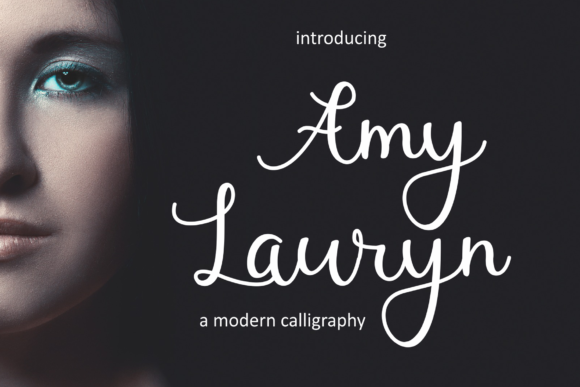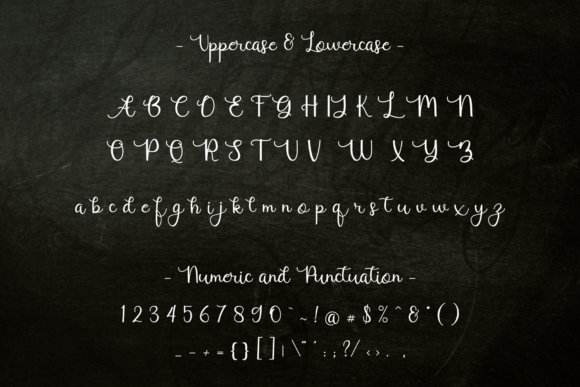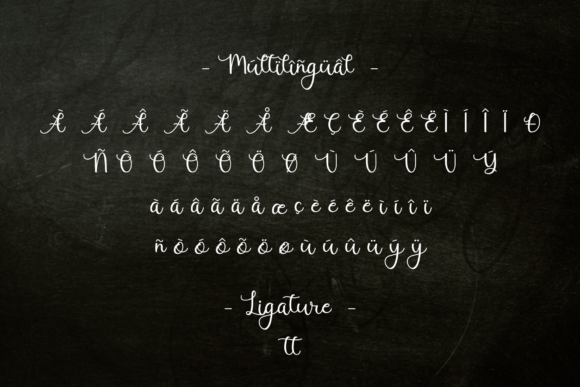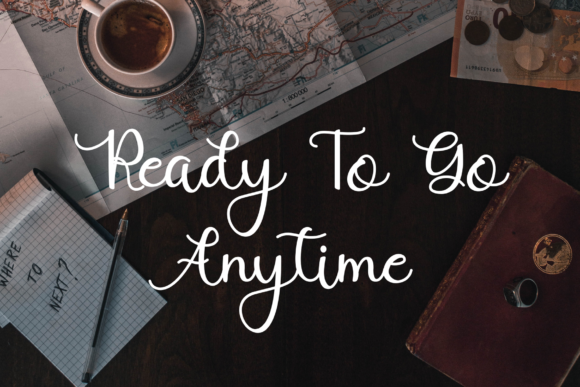
About Amy Lauryn Font
Amy Lauryn is a flowing handwritten font, described by an elegant touch, perfect for your favorite projects. Fall in love with its incredibly distinct and timeless style and use it to create spectacular designs!